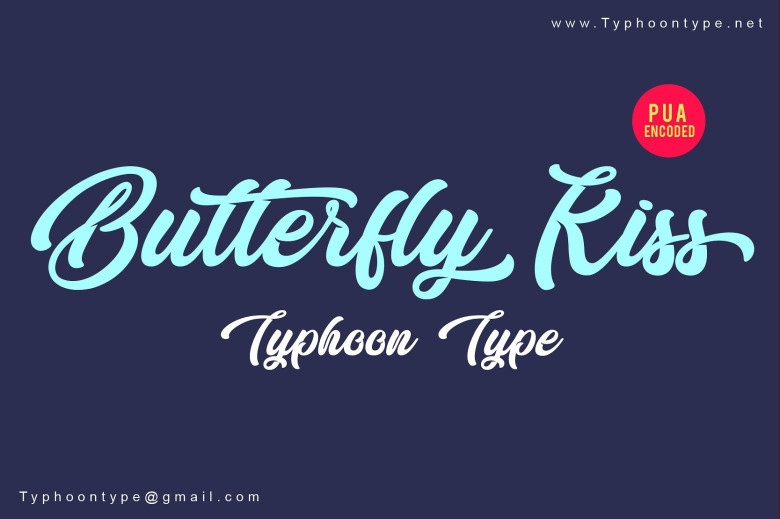
Butterfly Kiss Font
Hello! Introducing Butterfly Kiss Script Font! Butterfly Kiss is a organic, energetic, dynamic and modern. So this font can be used easily, even in mixing and matching with other fonts. Butterfly Kiss This font perfect for logos, name tag, advertising, product packaging, clothing, social media & greeting cards.